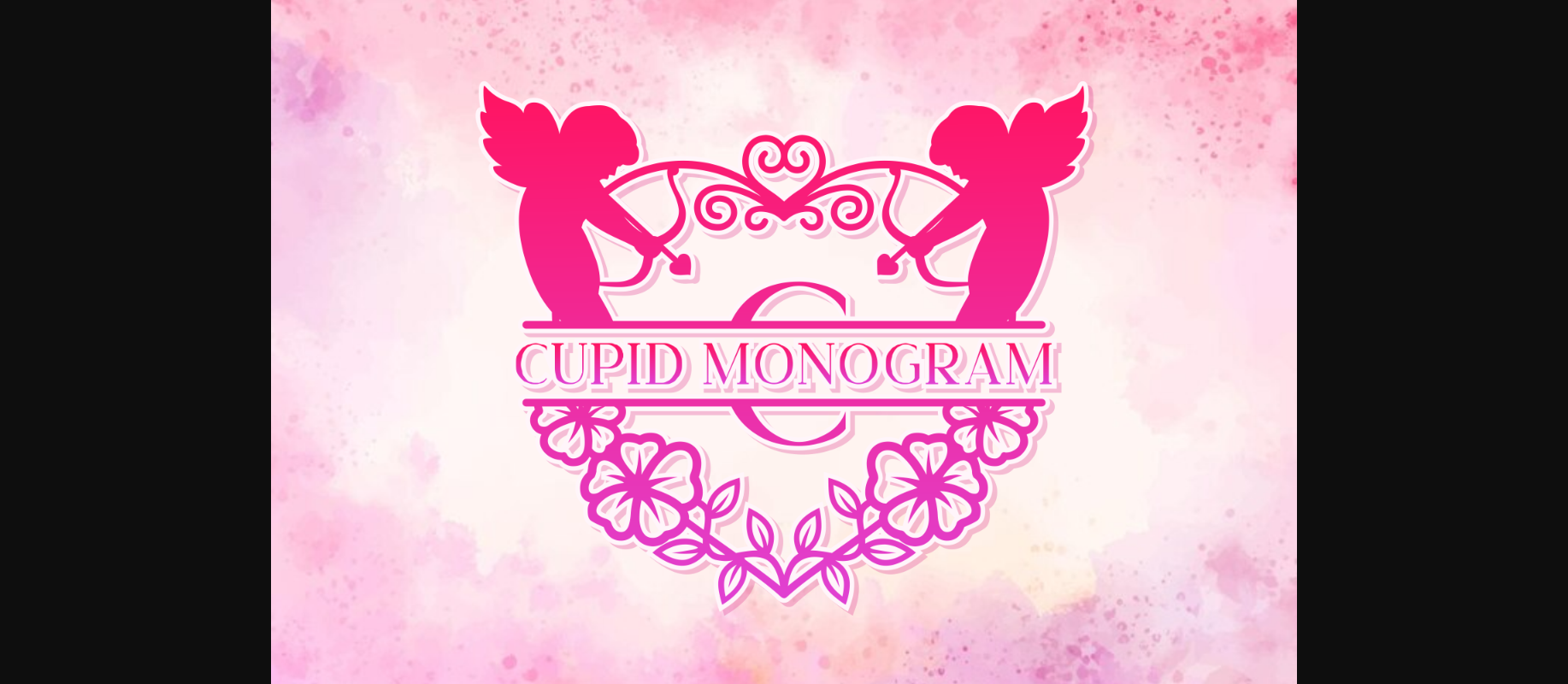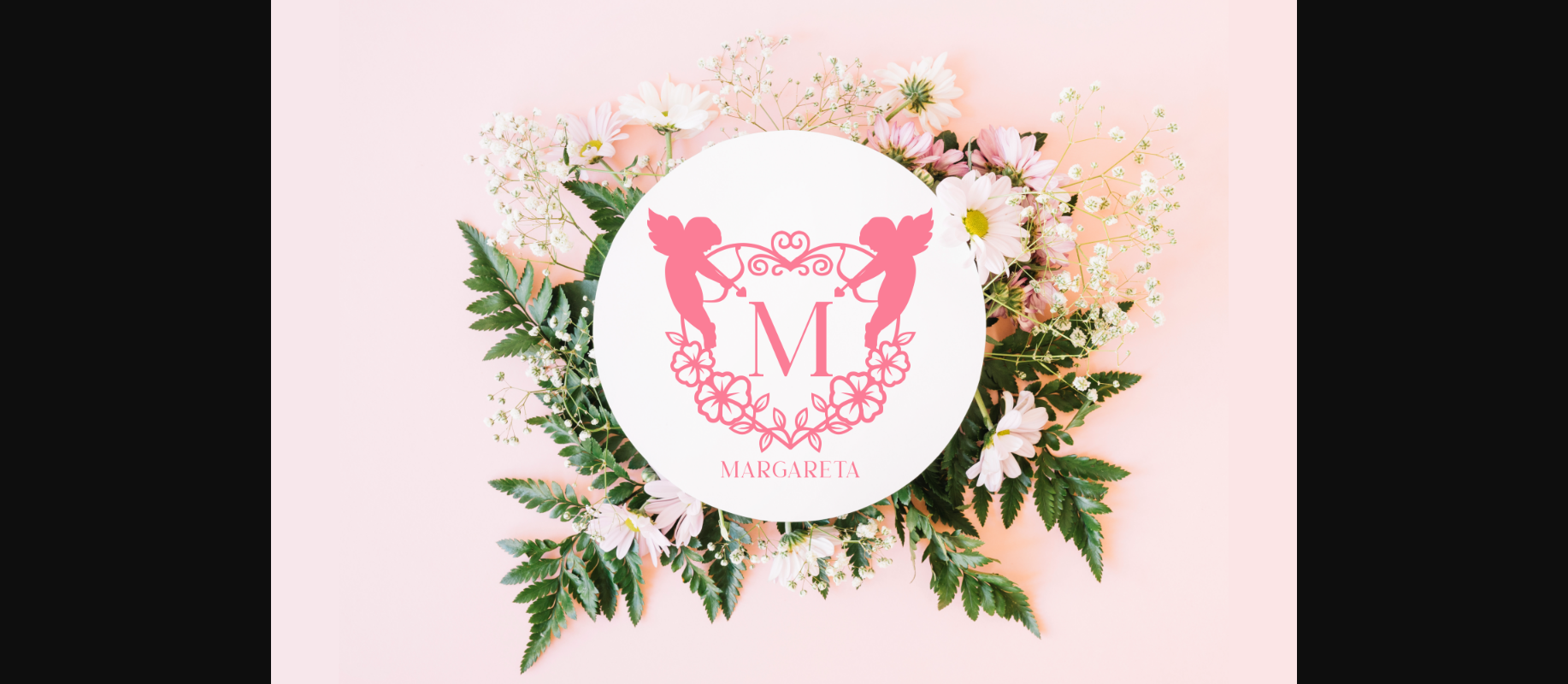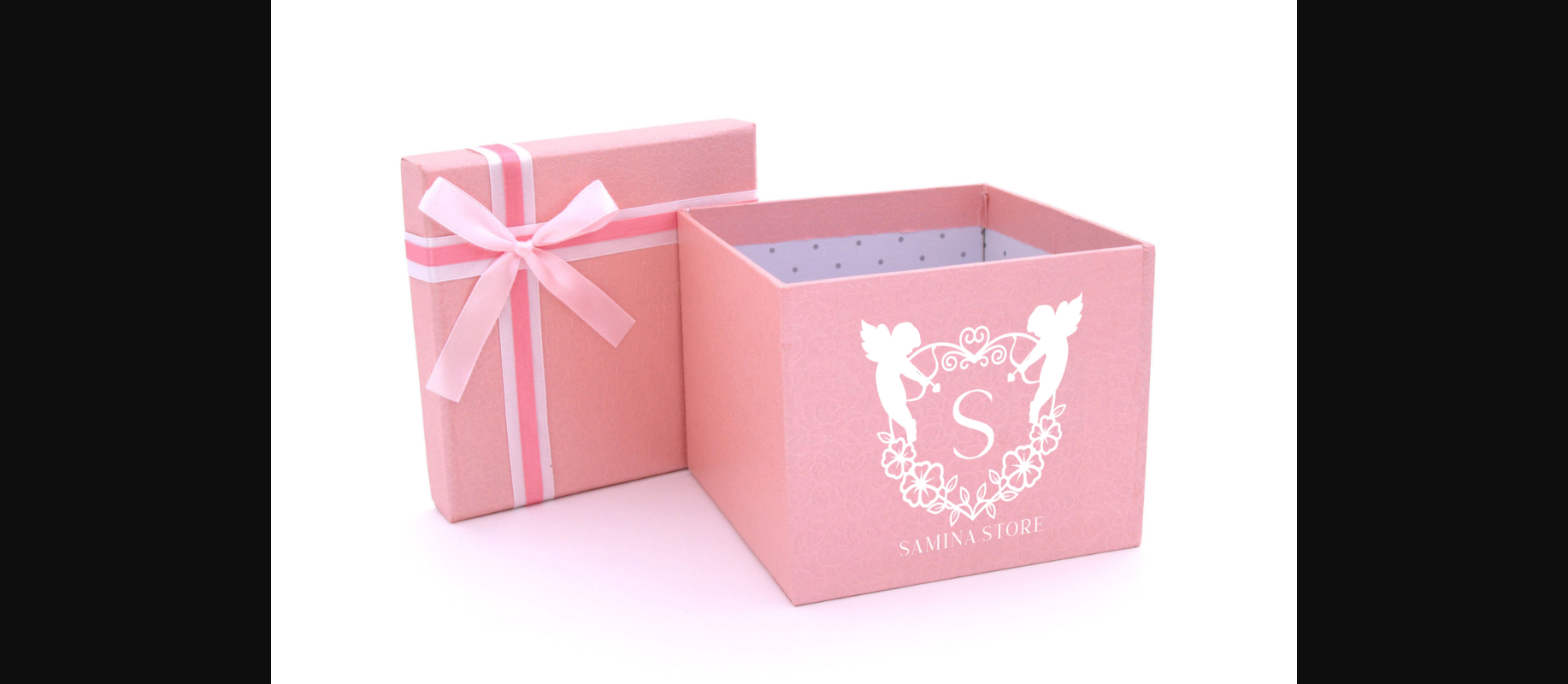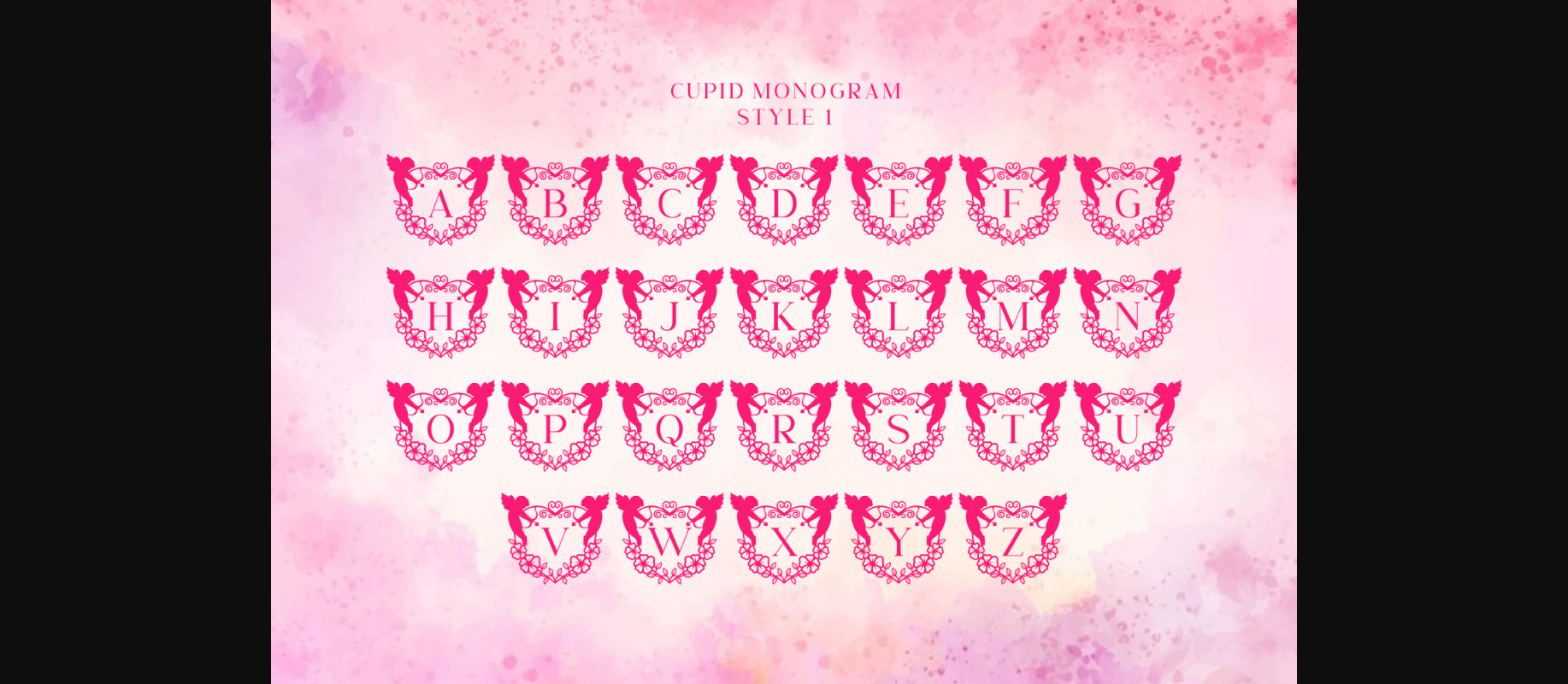
About Cupid Monogram Font
Cupid Monogram font is a delightful decorative typeface, crafted with intricate details and romantic charm. Its graceful curves and ornamental flourishes evoke a sense of elegance and nostalgia, perfect for wedding invitations, Valentine’s Day cards, and any design project that seeks to capture the essence of love and romance.